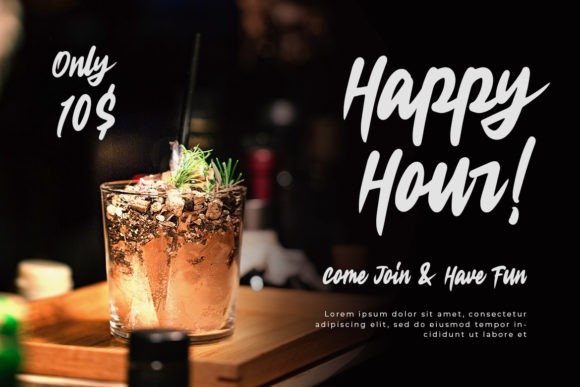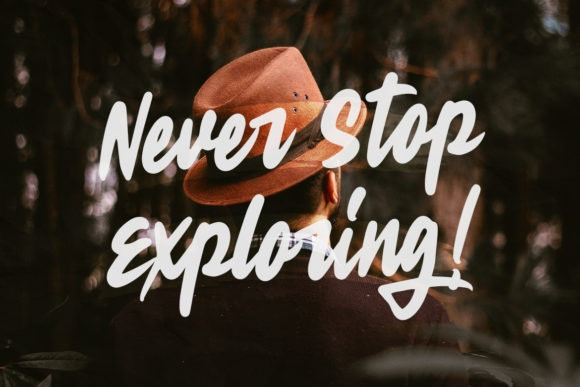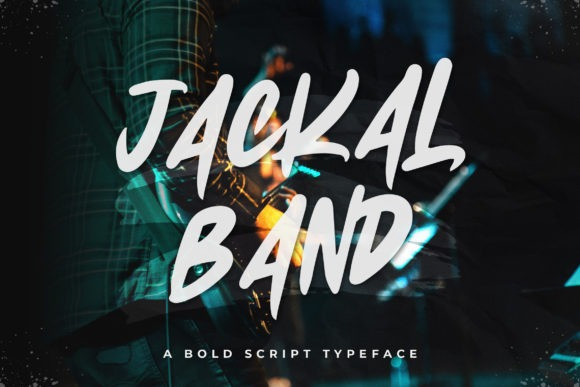
Jackal Band Font
Jackal Band Font is a gorgeous and bold handwritten font, crafted to give your headlines and logotype projects a stylish touch. This font reads as strong, confident, and dynamic and can add tons of nostalgic character to your designs.